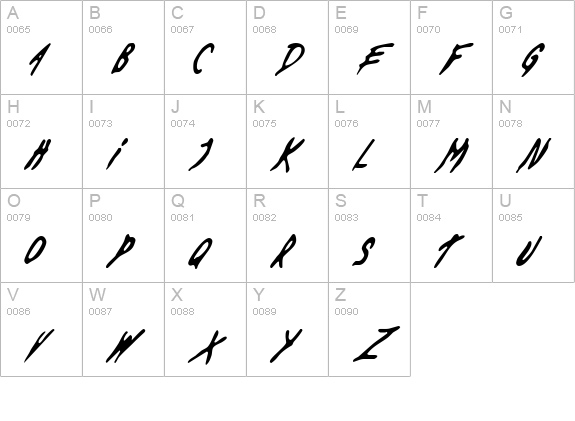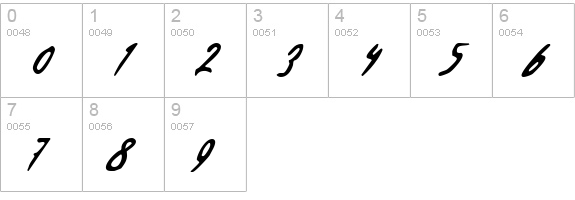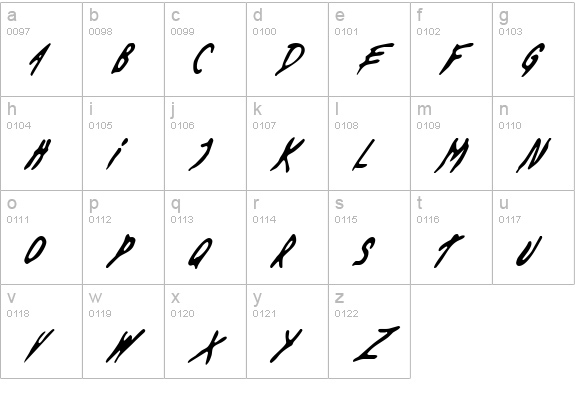
Dead By Dawn US font is a haunting and spine-chilling typeface that perfectly captures the essence of the horror genre. With its sharp edges and eerie aesthetic, this font is sure to send shivers down your spine. It is the ideal choice for any project that requires a touch of darkness and mystery. What makes Dead By Dawn US font even more appealing is that it is available for free download at FontsMarket.com. That's right, you can add this bone-chilling font to your collection without spending a dime. Don't miss out on the opportunity to enhance your designs with this striking and captivating typeface. Download Dead By Dawn US font today and unleash its sinister charm in your projects.